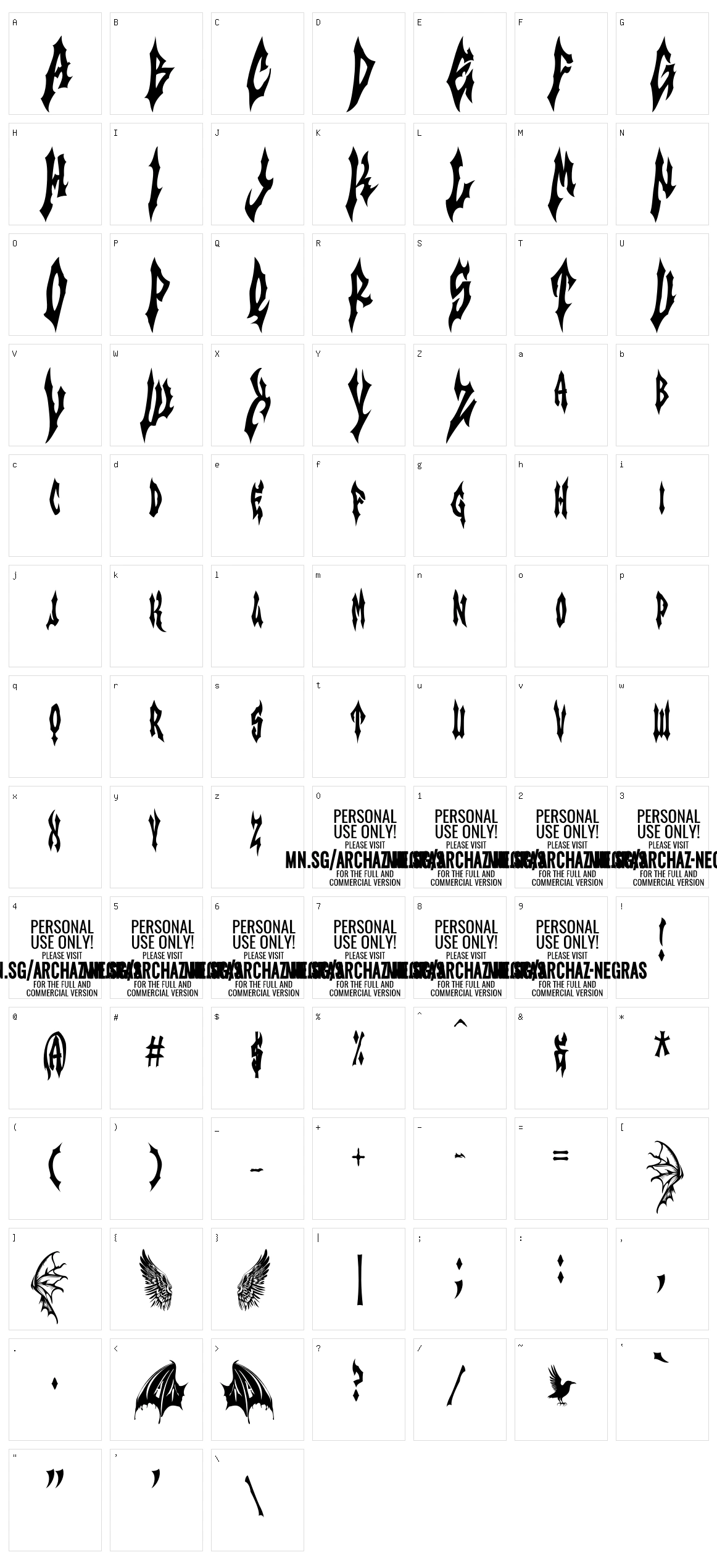
Archaz Negras strikes a chord with its rough rock band logo aesthetic.
Its symmetric and captivating character makes it a fit for movie posters, Halloween invites, or a heavy metal t-shirt that demands attention.
Dark, daring, and undeniably striking, Archaz Negras channels the raw energy of death metal and an eerie aura of horror.
Designed with precision by Mans Greback, this destroyed font resonates with the rebellious spirit of punk and its haunting allure of the unknown.
Write % after any word to make it symmetric.
Example: Metal%
Use { } [ ] < > around any word to give it wings.
Example: [batstyle]
Use characters ¶ ¦ ⡠¤ à ÷ â ± to make symbols like dragons, bats, spiders.